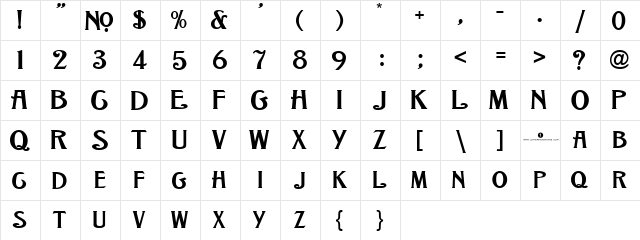
LHF Grant Antique Regular
Design Context for LHF Grant Antique Typeface
LHF Grant Antique wears its vintage influences proudly, with letterforms that recall mid-century signage, classic packaging, and nostalgia-driven design.
Perfect for vintage-inspired branding, retro packaging, nostalgia campaigns, and period-accurate editorial design.
Font Pairing: Combine LHF Grant Antique with a simple slab or neutral sans — period-accurate companions reinforce the vintage feel without competing for attention.
Pro Tip: Use LHF Grant Antique for headlines and pull quotes rather than body copy — its personality is best appreciated in short, focused bursts.